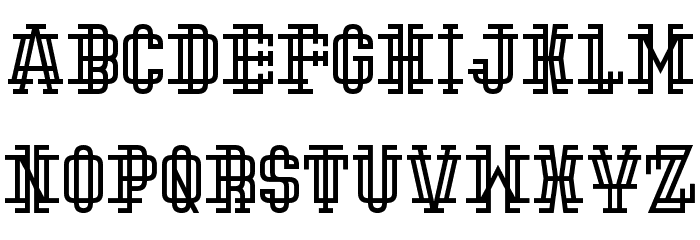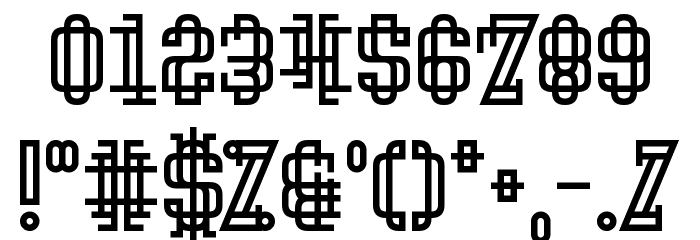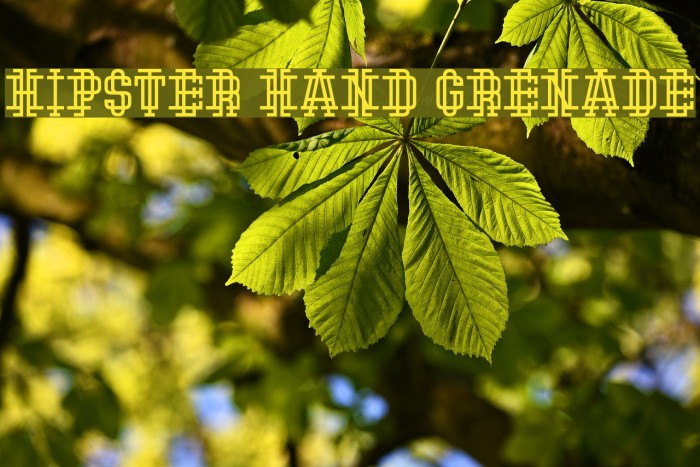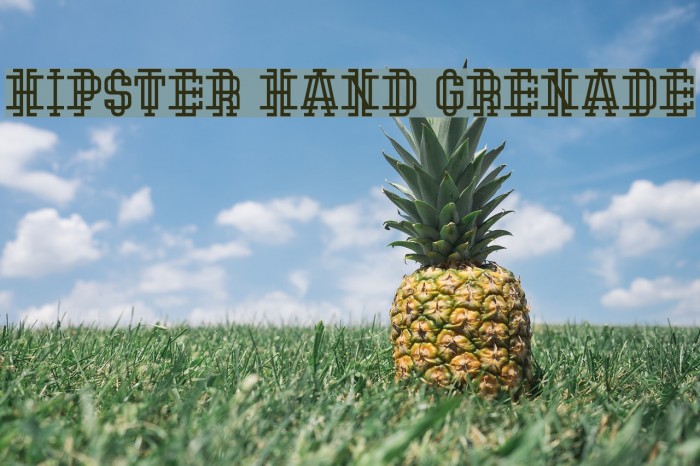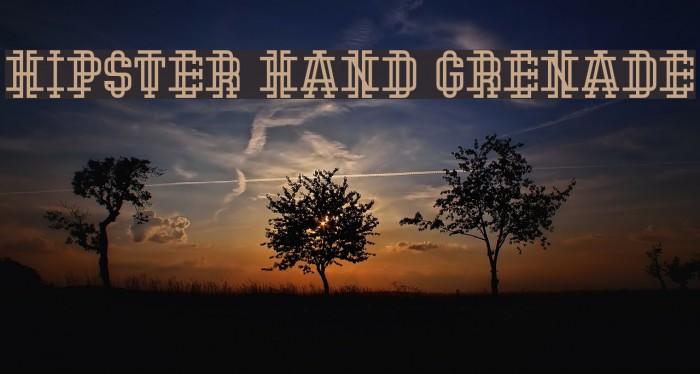
Hipster Hand Grenade Font
This font features a bold and striking design with a unique layered effect. The characters are outlined with multiple overlapping lines, creating a sense of depth and complexity. The uppercase and lowercase letters maintain a consistent style, with sharp angles and geometric shapes. Numbers and special characters are equally distinctive, making this font ideal for eye-catching designs. The overall appearance is modern and edgy, suitable for projects that require a strong visual impact.
A bold, layered font with a modern and edgy design.
- Proposed Projects: Ideal for posters, album covers, branding, and any project needing a bold statement.